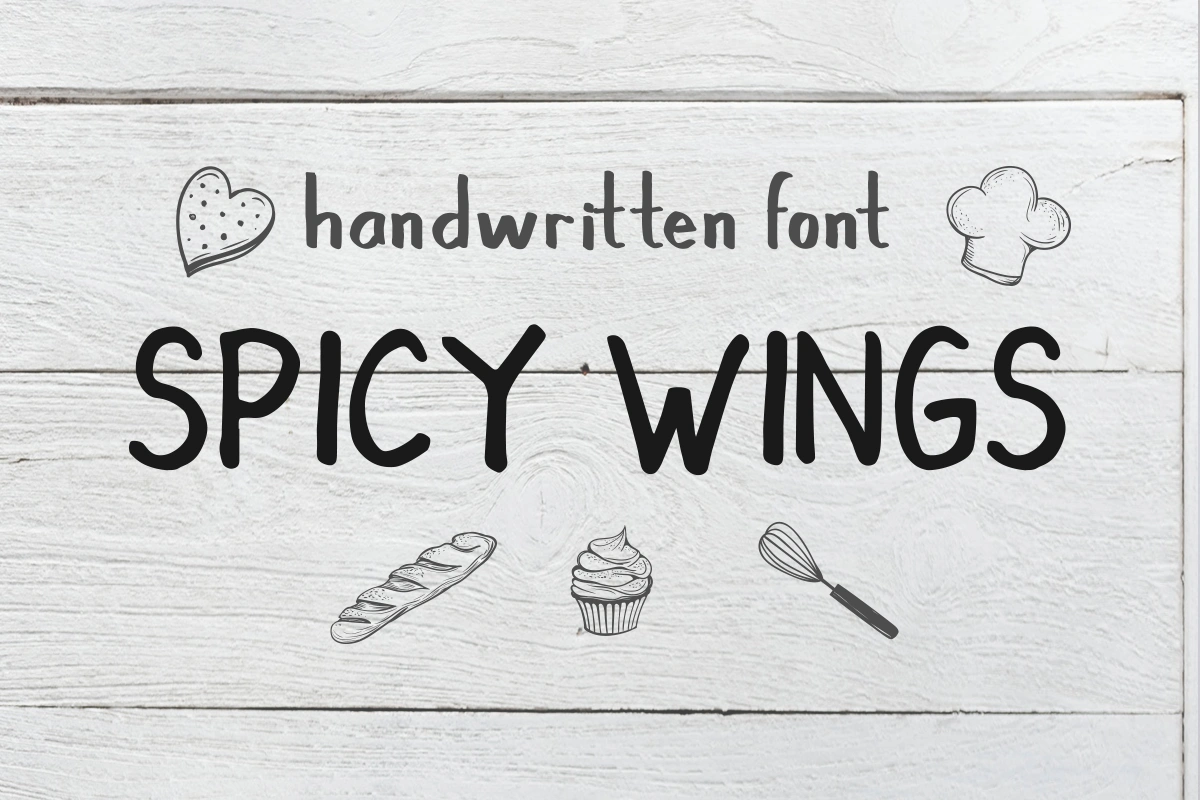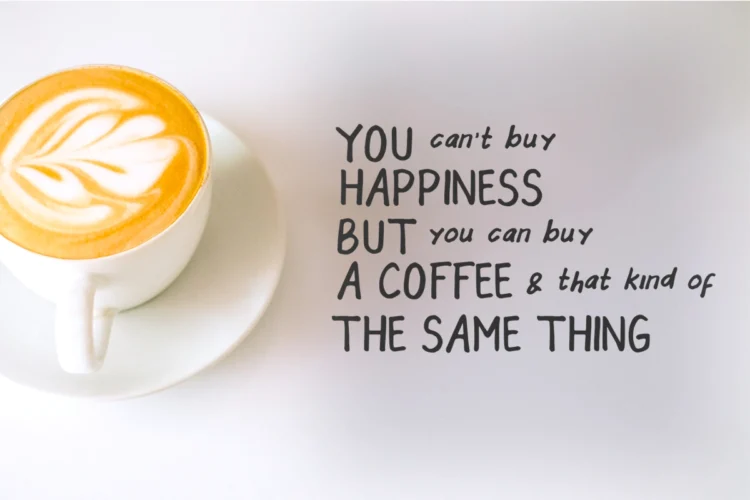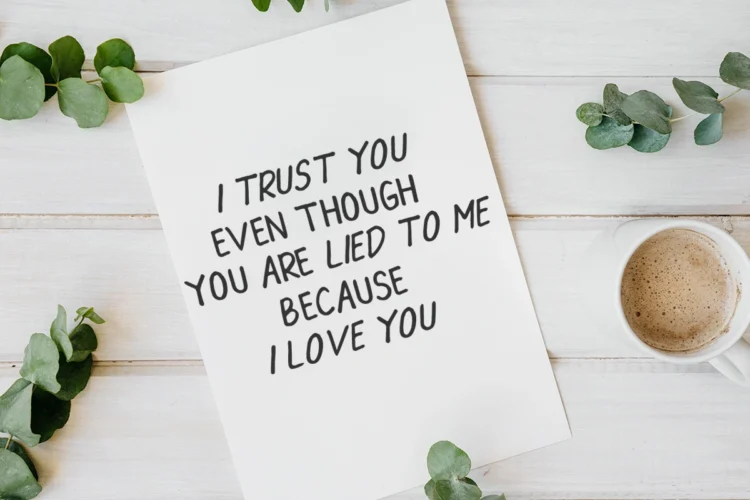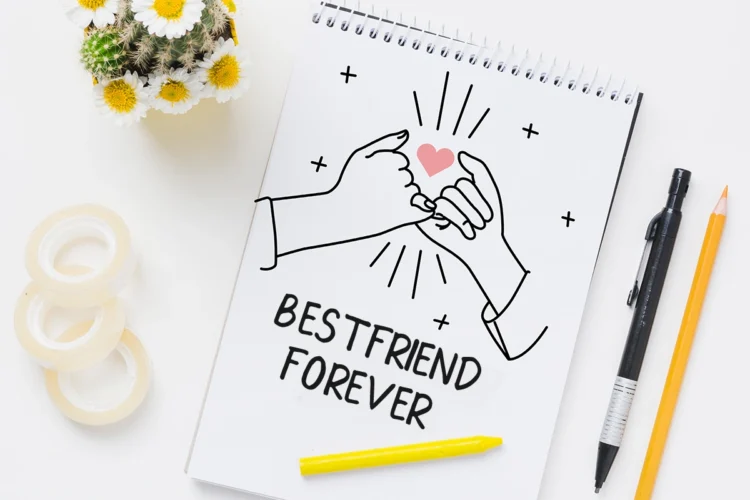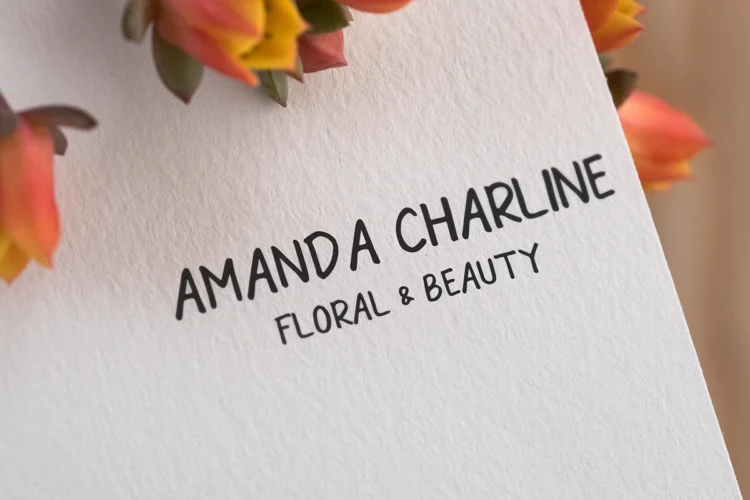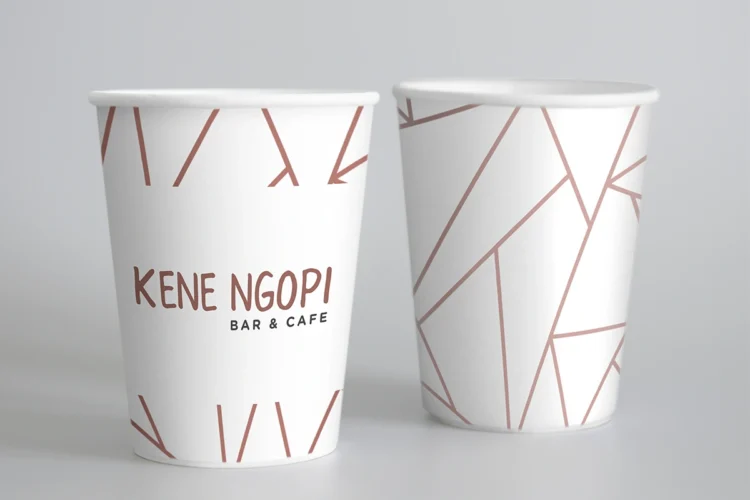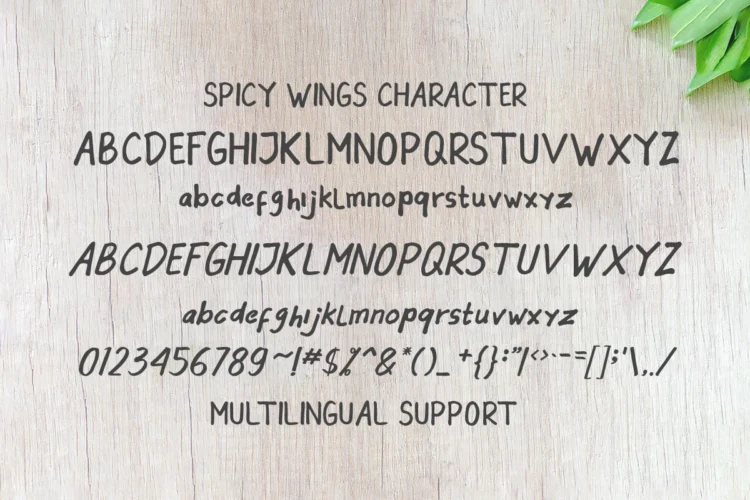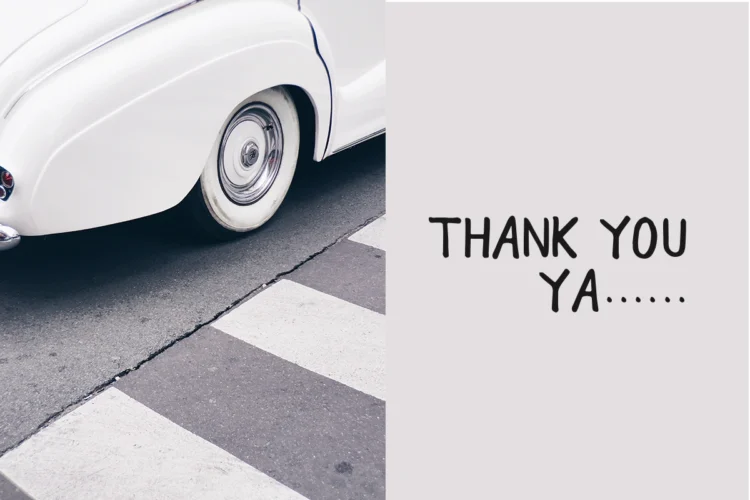
Spicy Wings – Display Font
The Spicy Wings is a fun, quirky handwritten font. This playful sans font will look so cute on your cards, invites, quotes, direction menu restaurant, and any other fun projects you are working on. It also works perfectly when pairing it with a script font.